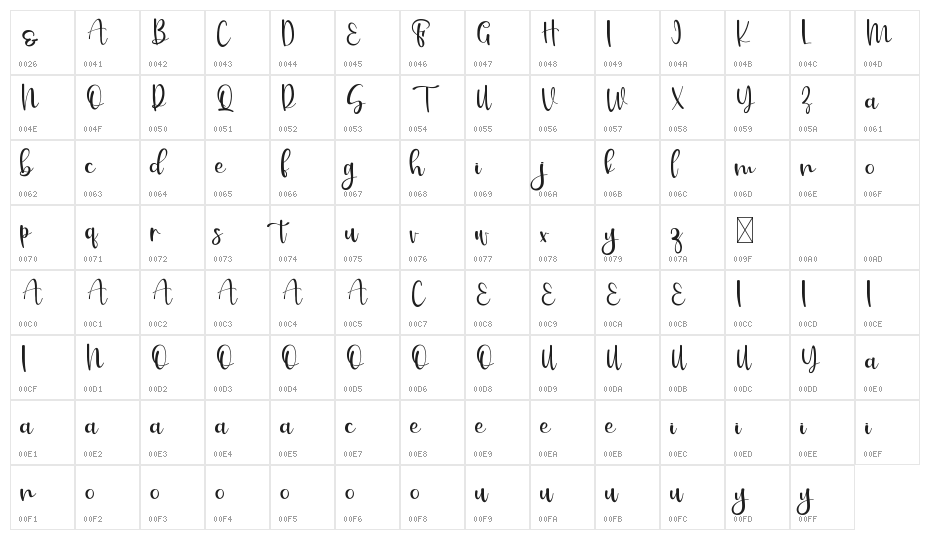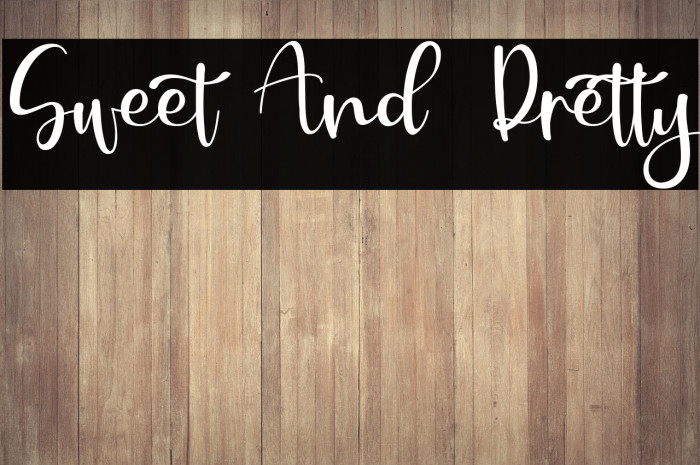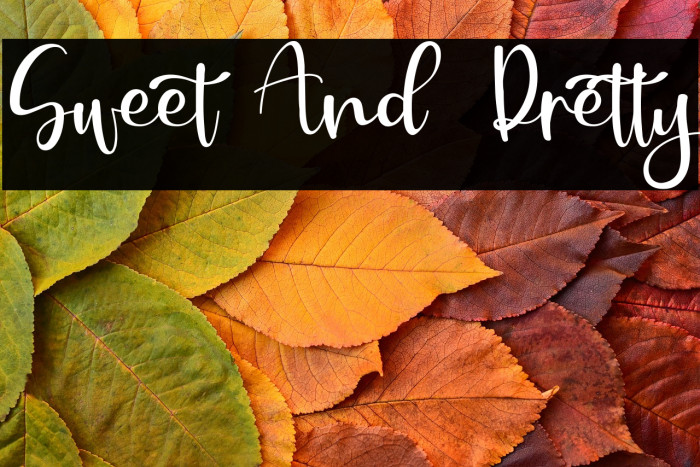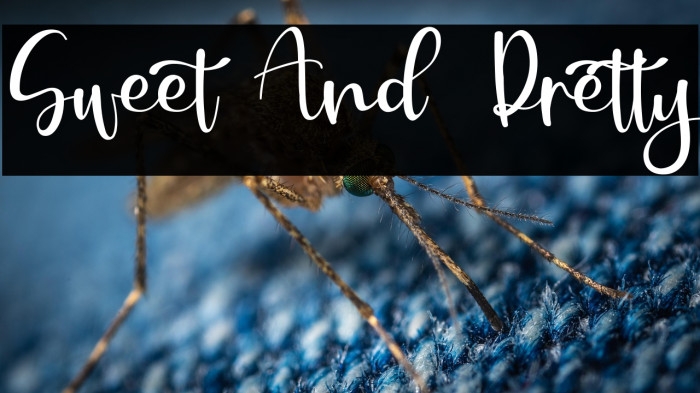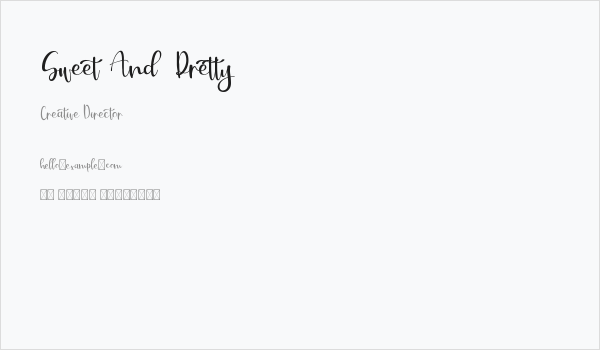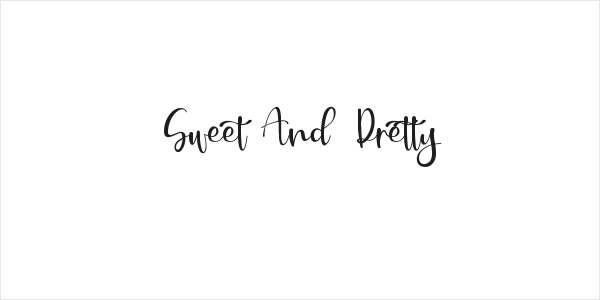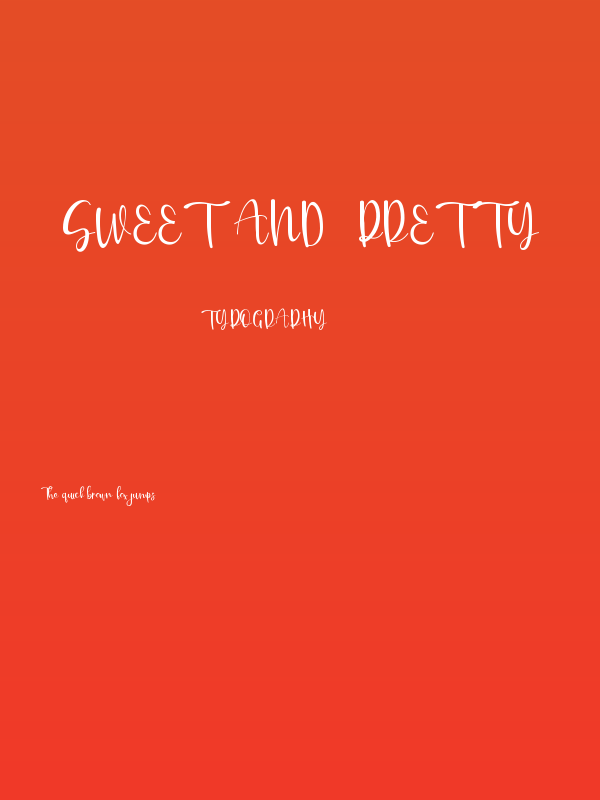
Sweet And Pretty Font
Sweet And Pretty Description
This font exudes a playful and whimsical charm, characterized by its flowing, cursive script style. The letters are elegantly connected, giving it a handwritten feel that is both casual and sophisticated. The strokes vary in thickness, adding a dynamic and lively touch to the overall appearance. The uppercase letters are bold and prominent, while the lowercase letters maintain a consistent fluidity, enhancing the font's graceful aesthetic. The special characters are thoughtfully designed to match the font's overall style, making it versatile for various creative applications.